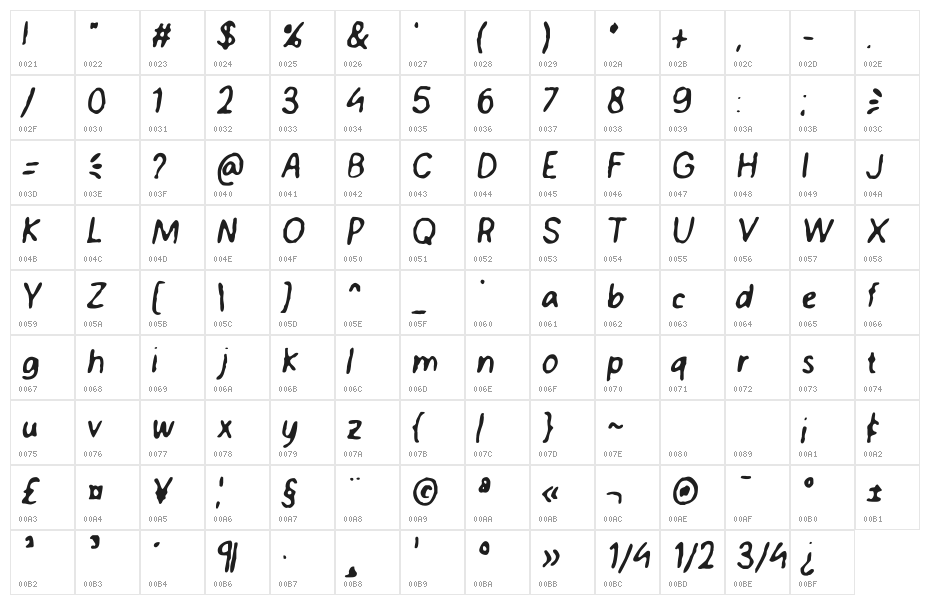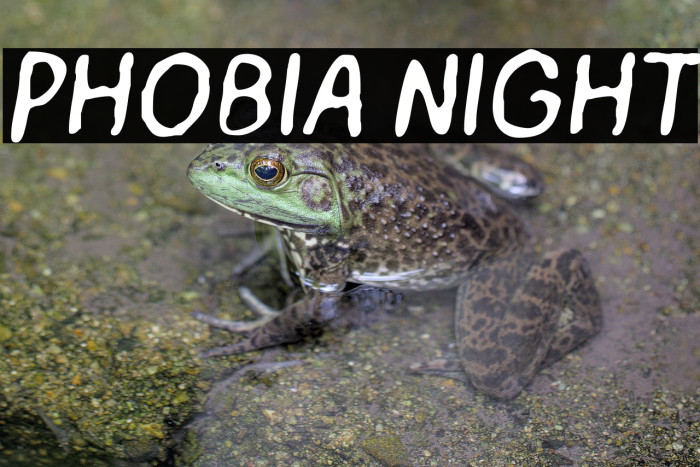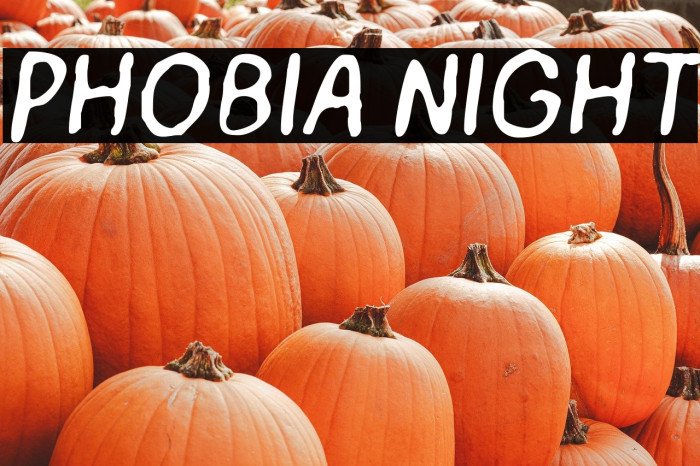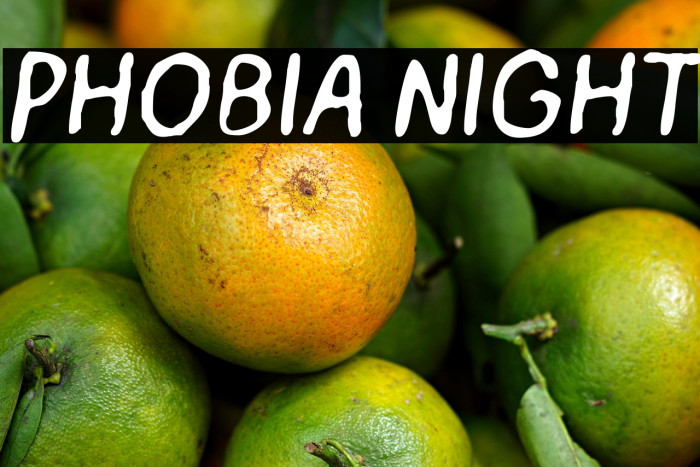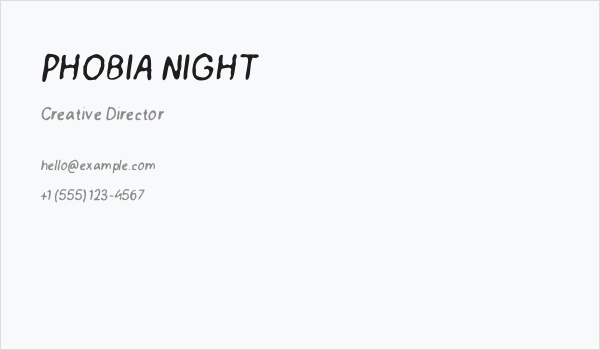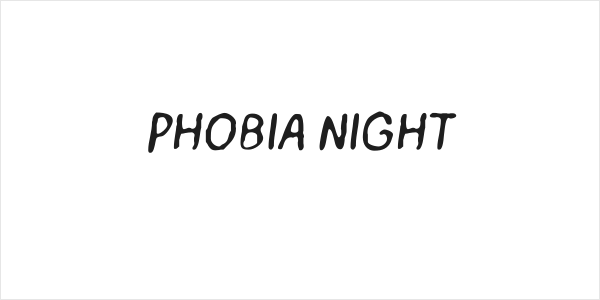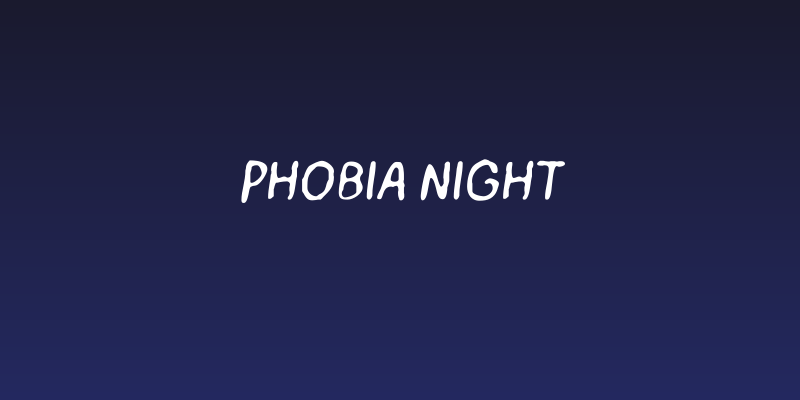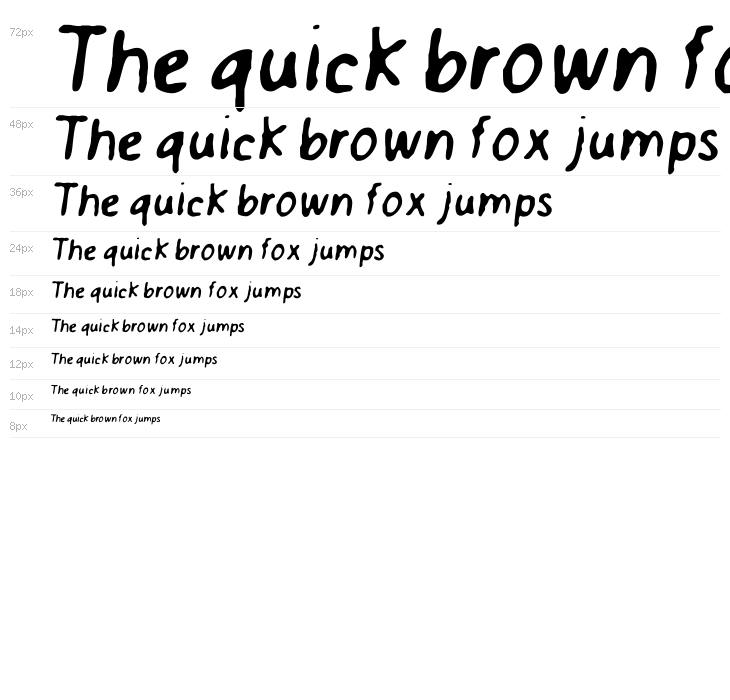
PHOBIA NIGHT Font
PHOBIA NIGHT Description
This font features a playful and slightly chaotic handwritten style, characterized by its uneven strokes and organic flow. The letters exhibit a casual, informal appearance, with varying thickness that adds a dynamic and lively feel. The characters are slightly slanted, giving an impression of movement and spontaneity. The numbers and special characters maintain the same energetic style, ensuring consistency across the font. This font's unique personality makes it stand out, offering a creative and artistic touch to any design.
| Use Case | Logos, Posters, Invitations |
| Proposed Projects | Ideal for creative projects such as children's books, artistic posters, casual branding, and playful invitations. |